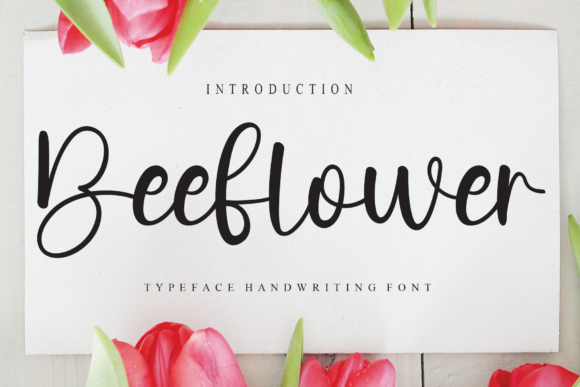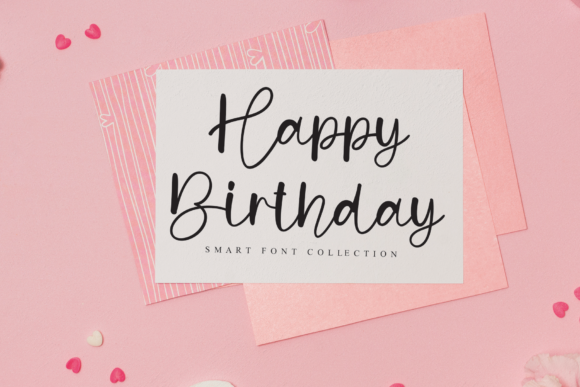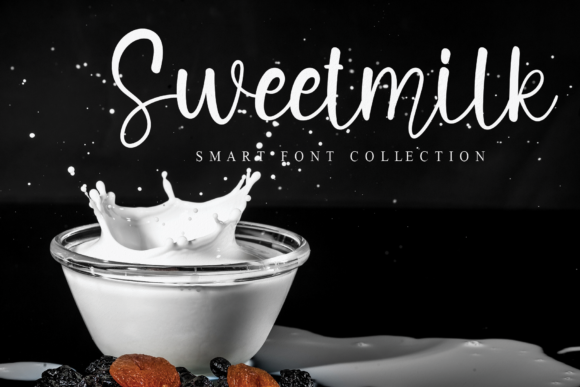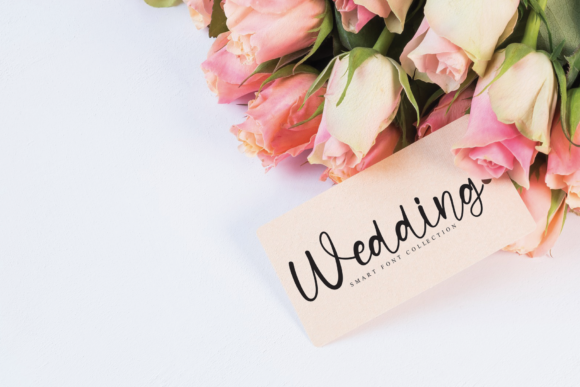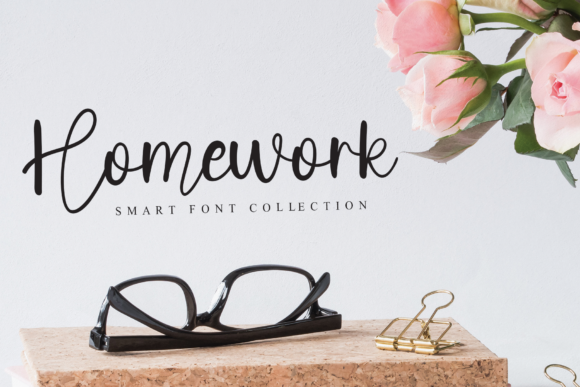
Beeflower Font
About Beeflower Font
Beeflower is a dainty and unique script font. Add this romantic and lovely looking font to each of your love letters, wedding invitations or favorite design ideas, and you will be astounded by the outcome.